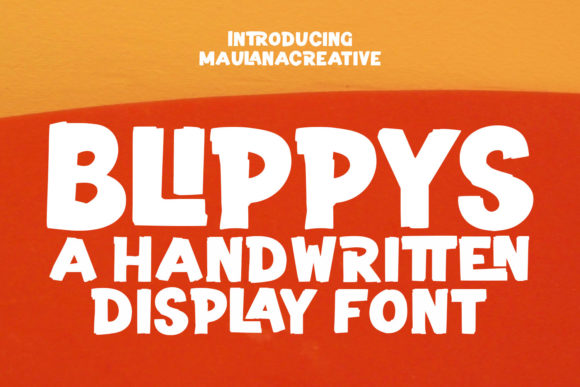
Prepare to be captivated by Blippys, the extraordinary display font that will ignite your creativity and transform your designs into masterpieces. Its bold and playful characters exude a charming cartoonish allure, making it the perfect choice for adding a touch of whimsy and fun to any project. Whether you're crafting logos, designing posters, or creating eye-catching headlines, Blippys will effortlessly elevate your work to new heights.
Indulge in the versatility of Blippys, a font that seamlessly adapts to a myriad of design styles. Its thick, chunky letters create a striking visual impact, making it an ideal choice for grabbing attention and conveying messages with clarity and impact. From playful invitations to vibrant social media posts, Blippys has the power to elevate any creation, turning ordinary designs into extraordinary works of art.
Step into a world of limitless possibilities with Blippys, the font that empowers you to express your creativity like never before. Its cartoonish charm adds a touch of lightheartedness to any project, while its bold presence ensures that your messages will always stand out. Unleash your imagination and let Blippys guide you on a journey of visual enchantment.